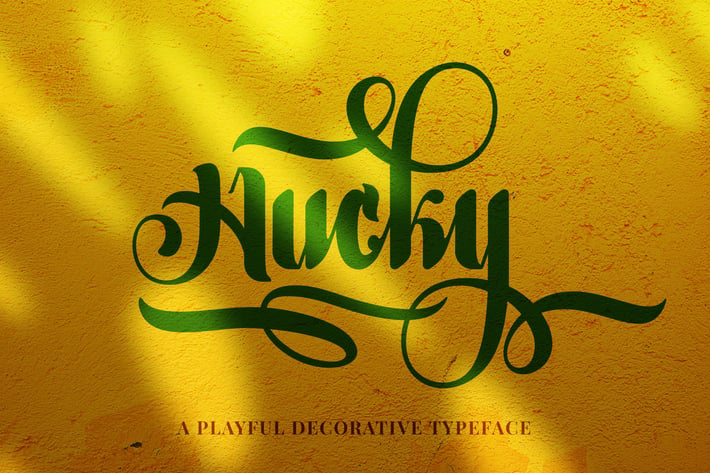
Hucky – Decorative Script Font
Hucky – is a playful decorative script font suitable for any graphic design project such as lettering, mural, t-shirt, print template, business cards, logo, poster, photography, quotes, signage, etc.
CHARACTER DETAILS
Uppercase and lowercase
Numbers 0-9
Stylistic sets
* Multilingual